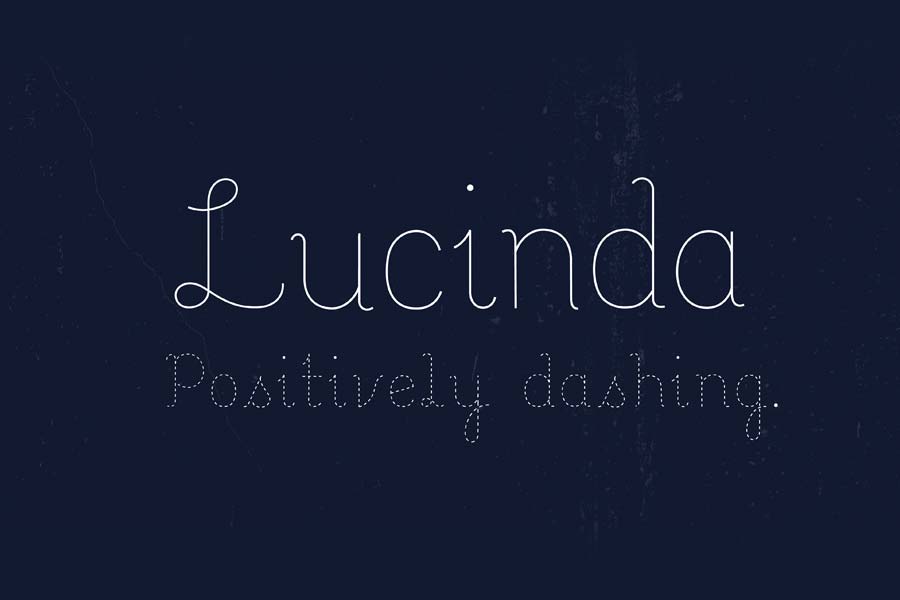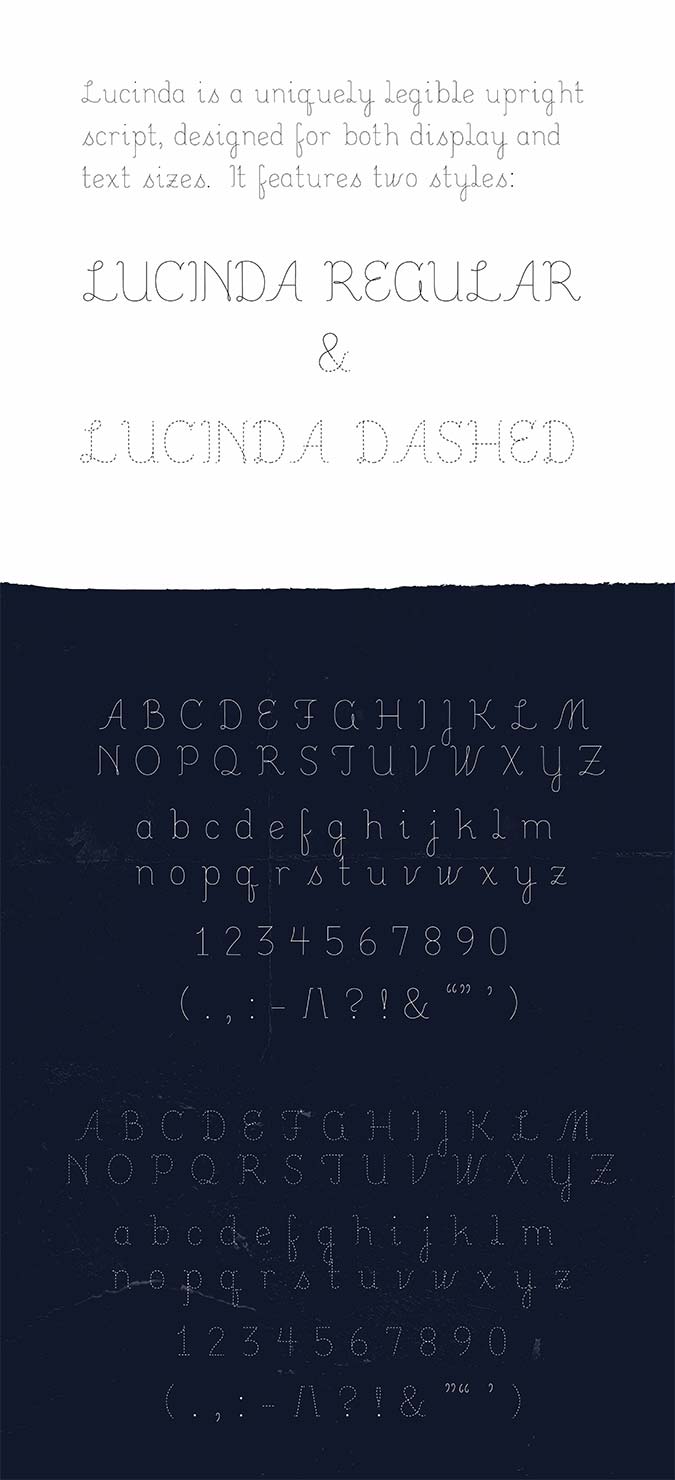
Lucinda is a free light weighted display font that comes with two styles. This elegant font resembles neat handwriting style with the solid fill style and dotted style. Because of its super thin weight, I wouldn’t think this font will work well on smaller font sizes, but perhaps it will look good as decorative type design.